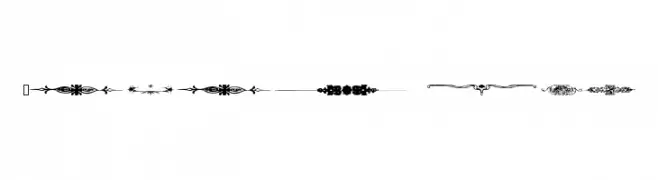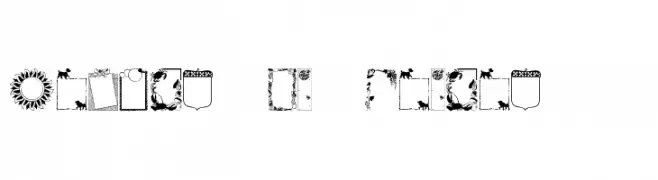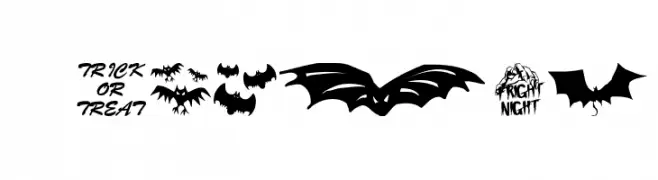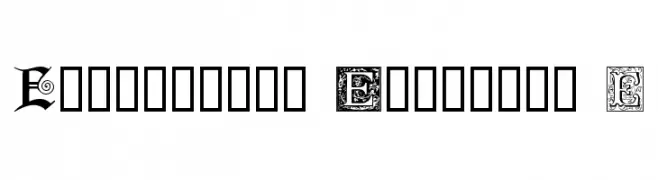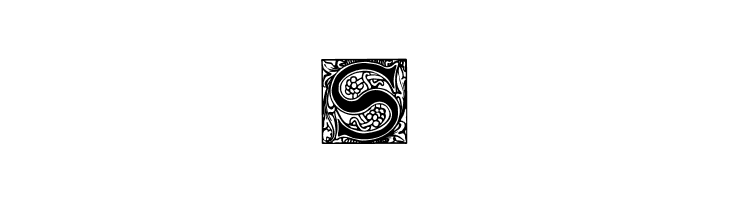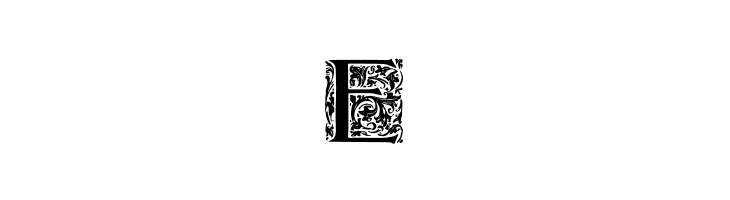
• Ornamental Initials S
An ornate, decorative font with intricate floral embellishments, reminiscent of medieval manuscripts.
• SquareFrame
The image contains square frames, not a font.
• Ornamental Initials K
A decorative font featuring ornate and intricate uppercase 'K' designs.
• Sporty
A bold, geometric font with a sporty, digital display style.
• Ornamental Initials E
An ornate, decorative font with intricate designs and a vintage feel.
• FramesAndBordersIII
A collection of decorative frame and border glyphs for creative embellishment.
• Howling
A decorative Halloween-themed font with playful and spooky illustrations.
• SimplyFriends
A whimsical font featuring playful animal illustrations for each character.
• Stamped Flowers
A bold, stamped-style font with characters enclosed in rectangular borders.
• Dividers
Intricate vintage-style decorative dividers.